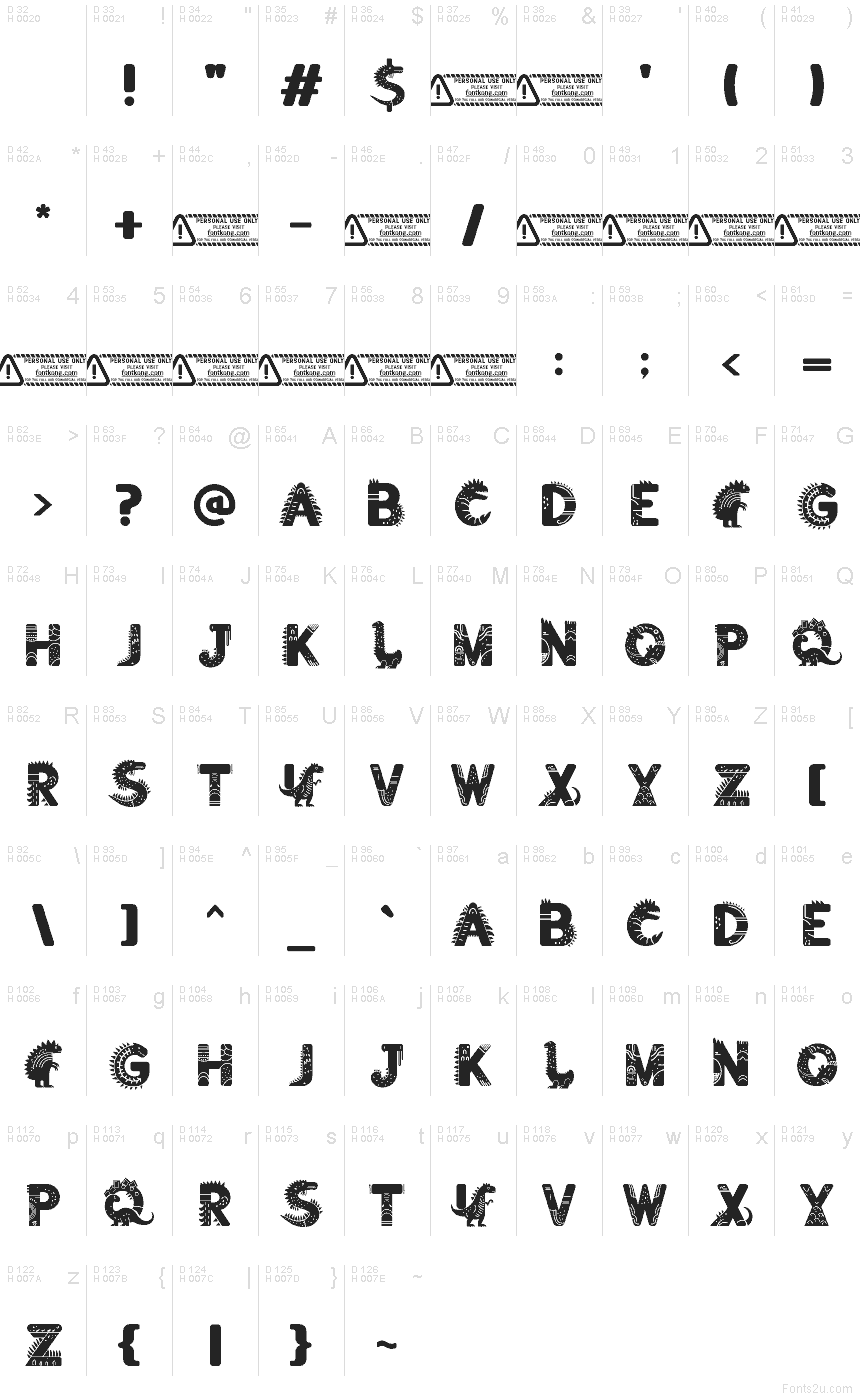
Dino Forest font by Kong Font is a decorative display typeface with bold characters and a fun appearance. Its playful, cartoon-like letters carry thematic elements surrounding dinosaurs and nature that includes the signature silhouette of the tall tree. The charm and illustrative quality of this font will surely capture the attention of both kids and adults.